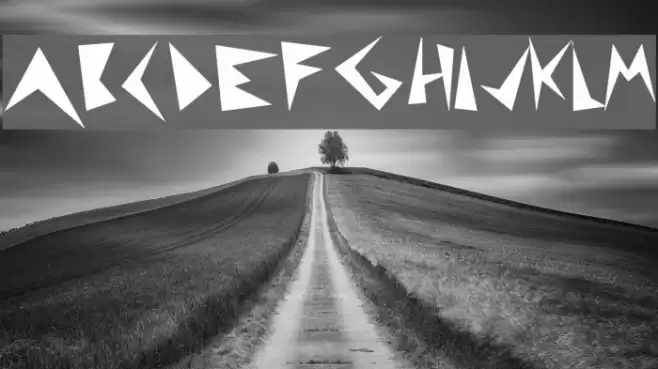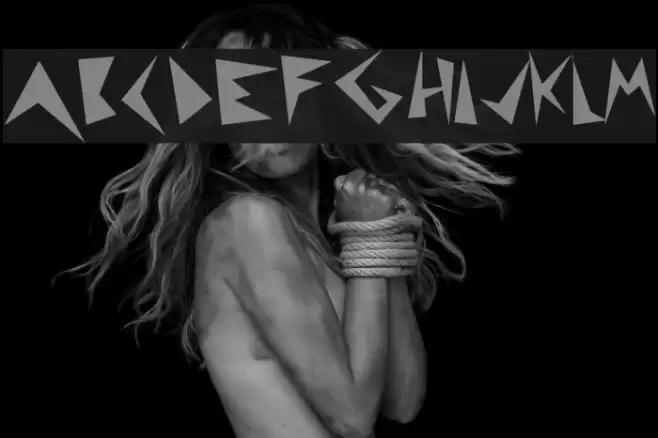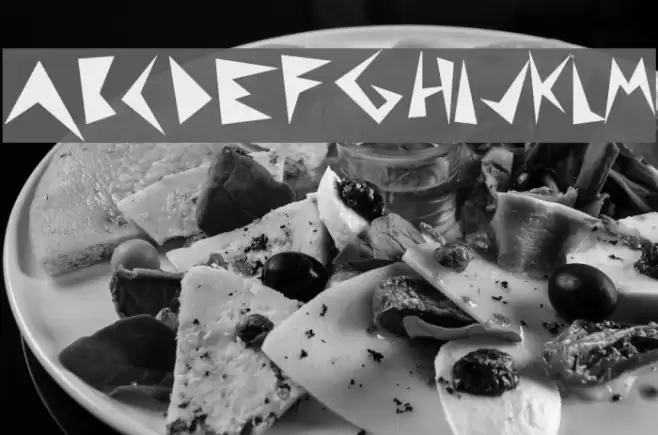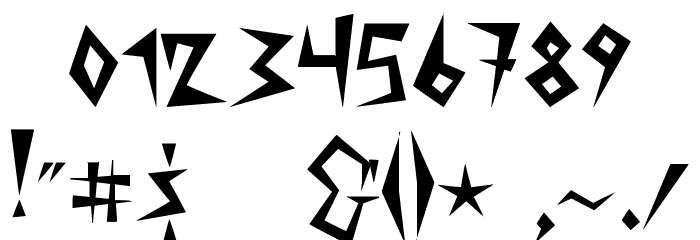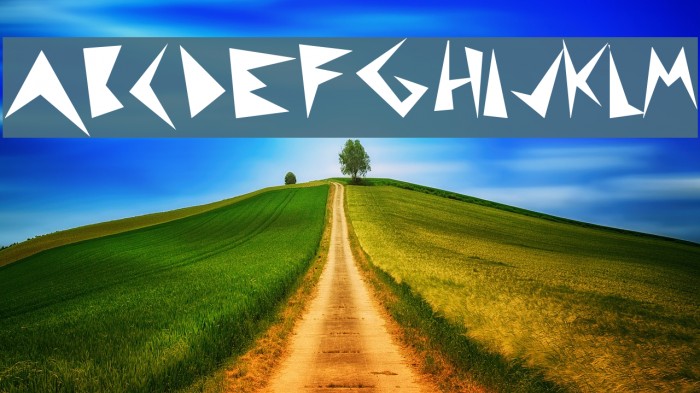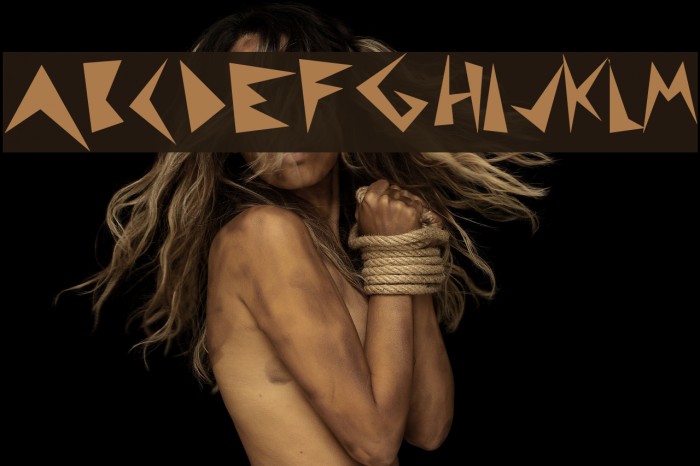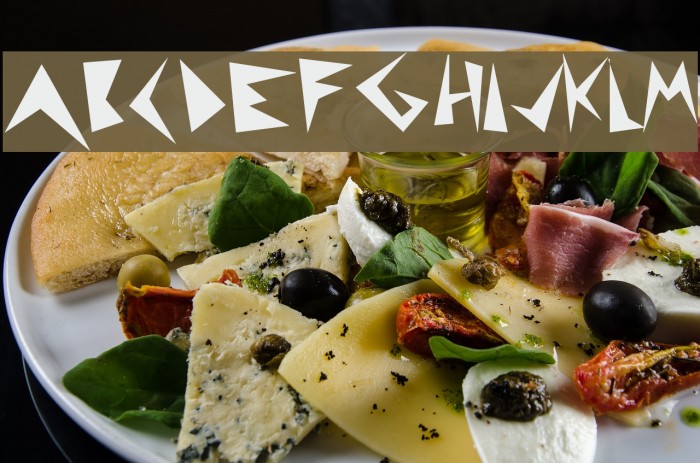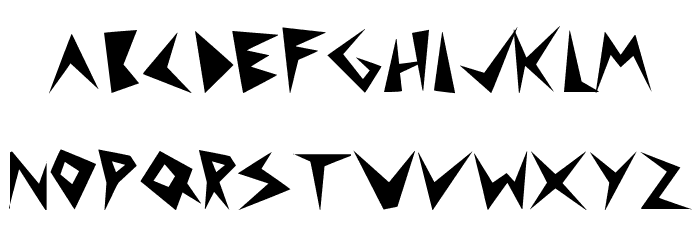
puntúa display Font
puntúa display Description
This font features a bold and edgy design with sharp, angular lines and a geometric aesthetic. Each character is crafted with a distinct, jagged appearance, giving it a dynamic and aggressive feel. The uppercase and lowercase letters maintain a consistent style, with exaggerated points and asymmetrical shapes that create a sense of movement and energy. The numbers and special characters follow the same design principles, ensuring a cohesive look across all elements. This font is ideal for projects that require a strong visual impact and a modern, rebellious vibe.
A bold, angular font with sharp, geometric lines and a dynamic, edgy style from Crazy fonts.
- Proposed Projects: Perfect for music album covers, skateboarding brands, streetwear logos, and event posters.
- Overall Style: Modern, Edgy